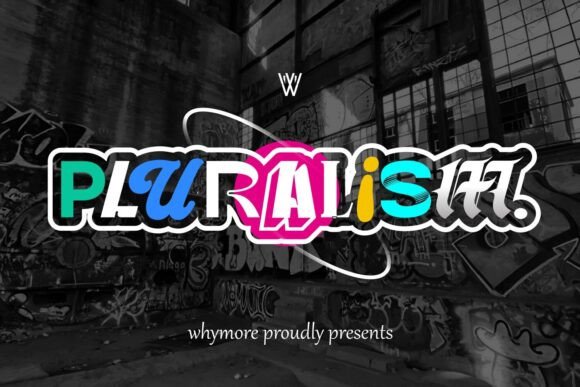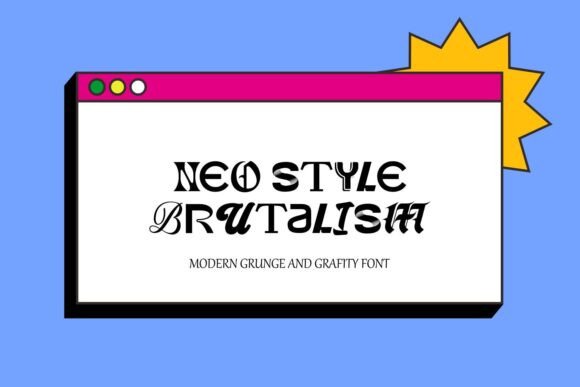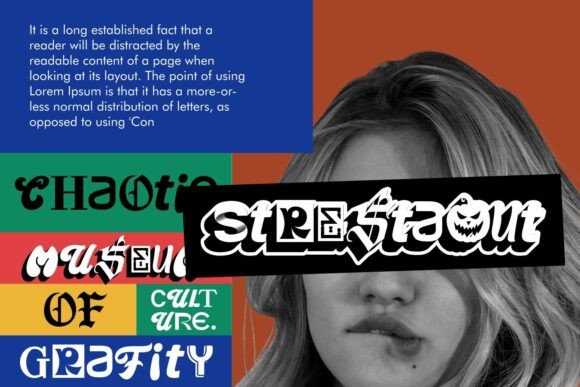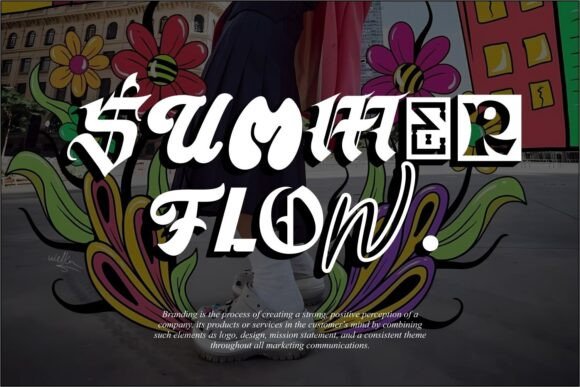
Pluralism Font: Bold Graffiti Display Font for Standout Logos & Posters
About the Pluralism Font
Make a bold statement with Pluralism Font, a powerful and memorable font. Discover the vibrant energy of city life with Pluralism, a dynamic graffiti-inspired font that resonates power and rebellion. Pluralism showcases its gritty, street-cred aesthetic ideal for standout logos, impactful posters, intriguing album covers, and eye-catching brand identities. This graffiti-infused font sets itself apart with its punchy color spectrum and innovative letter design, injecting fresh, modern attitude to time-honored graffiti calligraphy.
Perfectly bridging the gap between digital and physical realms, Pluralism brings a tang of true street essence to your artwork. Be it audacious t-shirt graphics, urban fashion labels or gutsy social media visuals, this font assures an assertive message delivery each time.
In the Bold Pluralism Package, you’ll find a vibrant, attitude-packed graffiti-inspired typography. It’s a go-to for attention-grabbing logos, album art, posters, and t-shirt motifs. Ideally suited for urban brand identities, street art undertakings and grunge-style initiatives. Equally adaptable for both print and digital canvases.
Pluralism Font Usage Examples